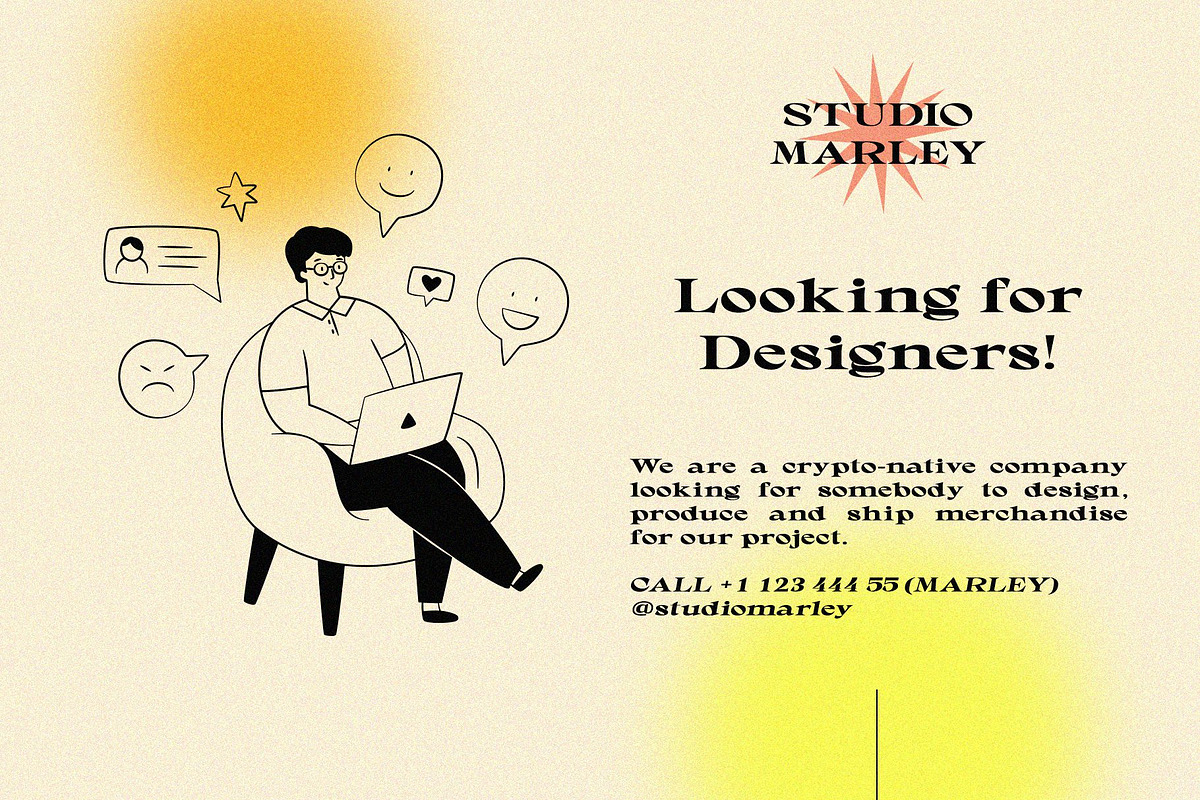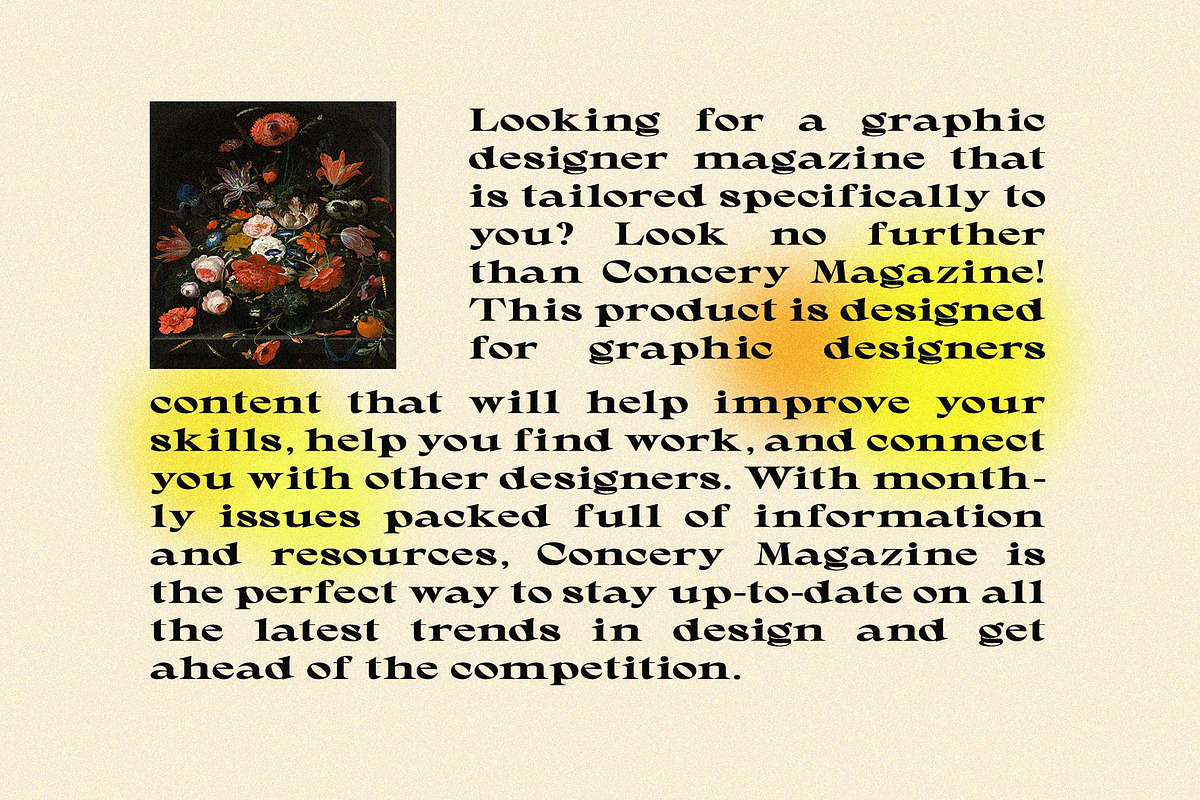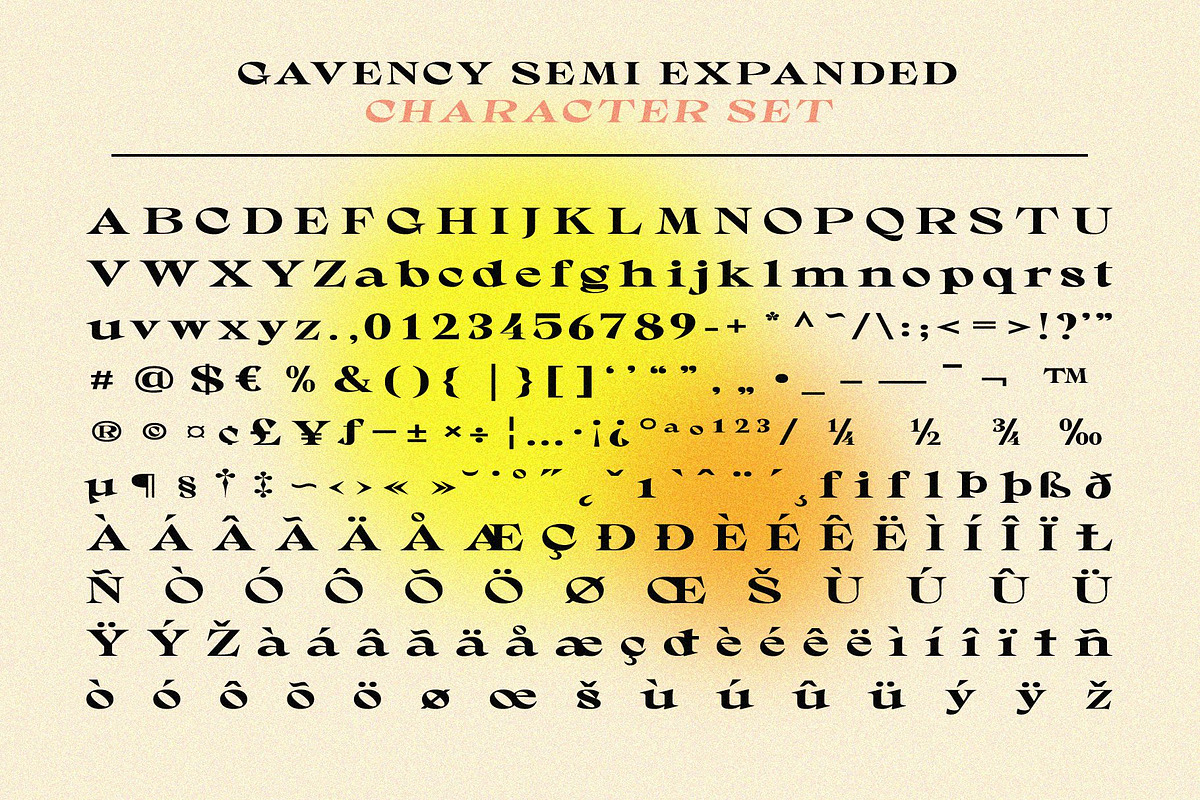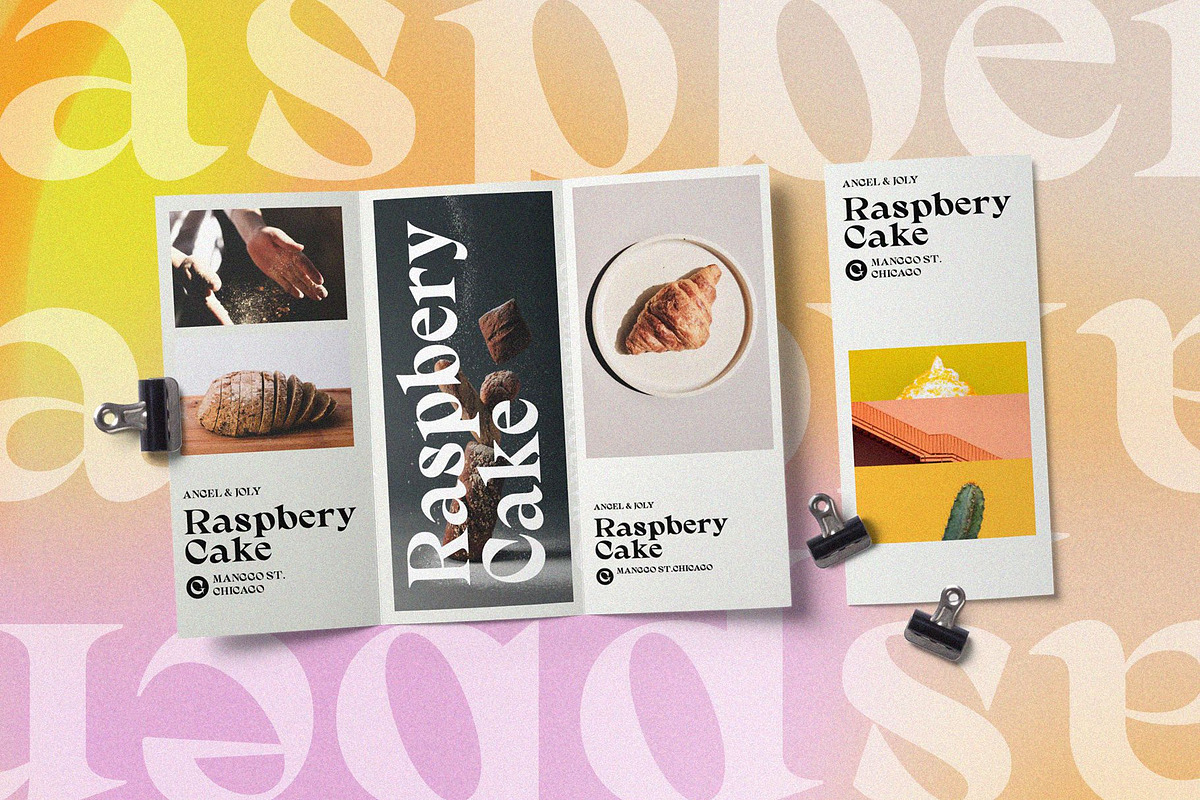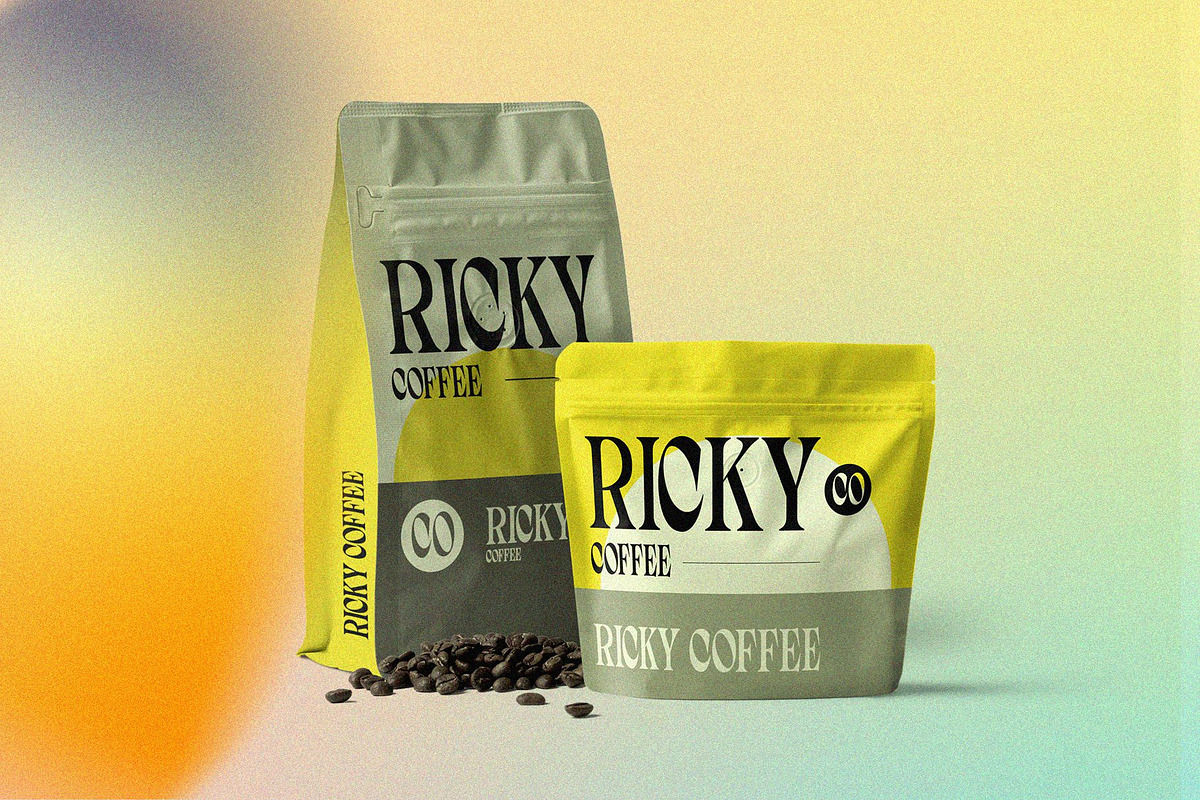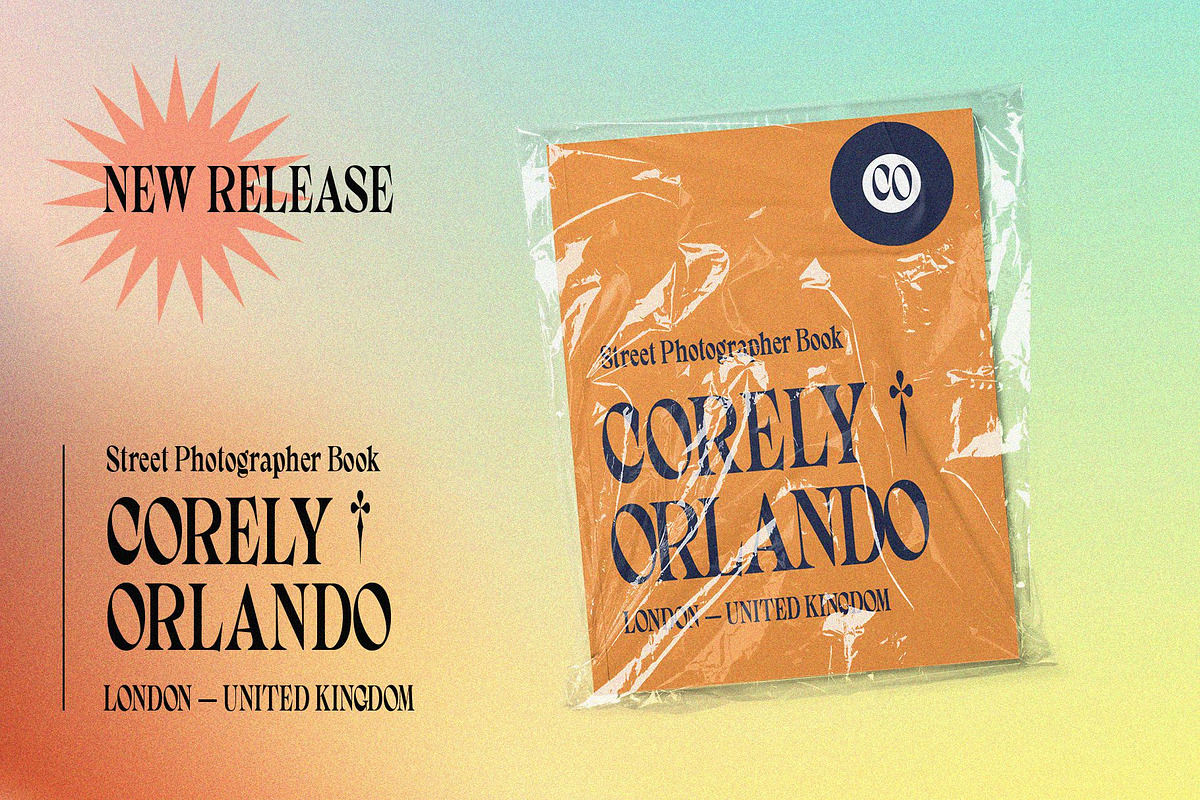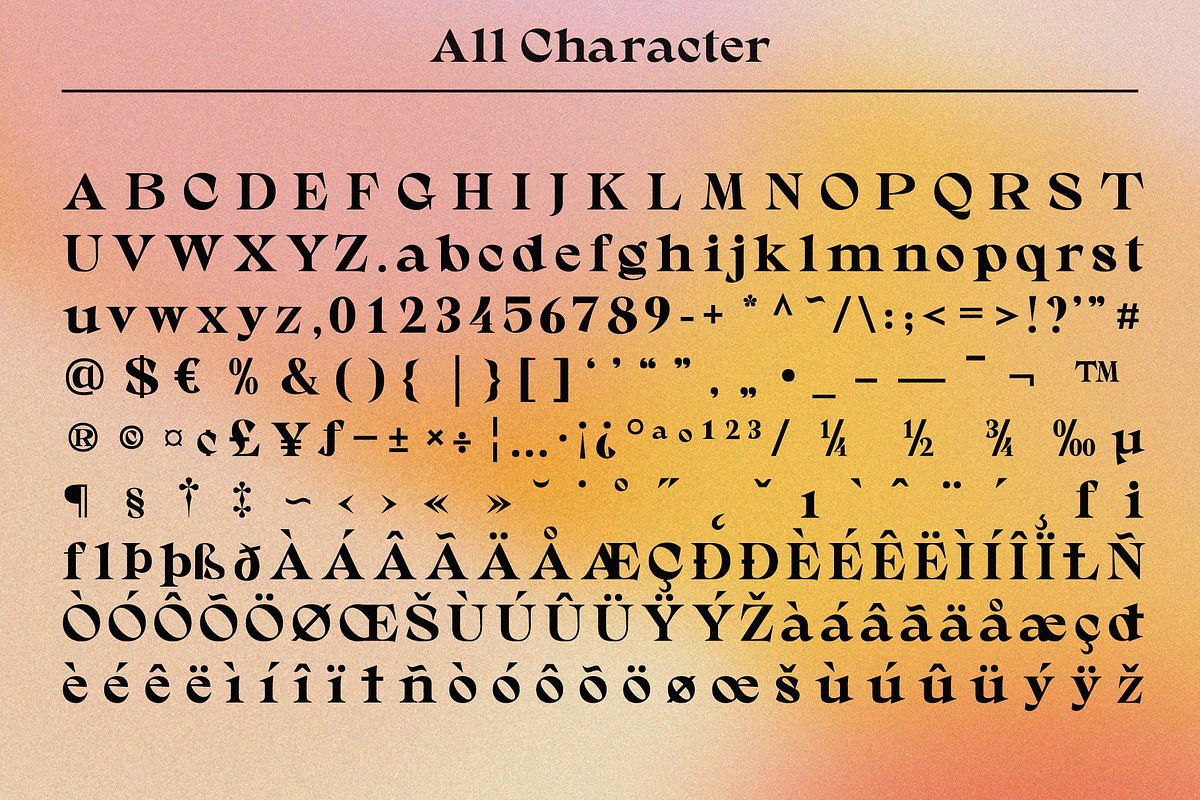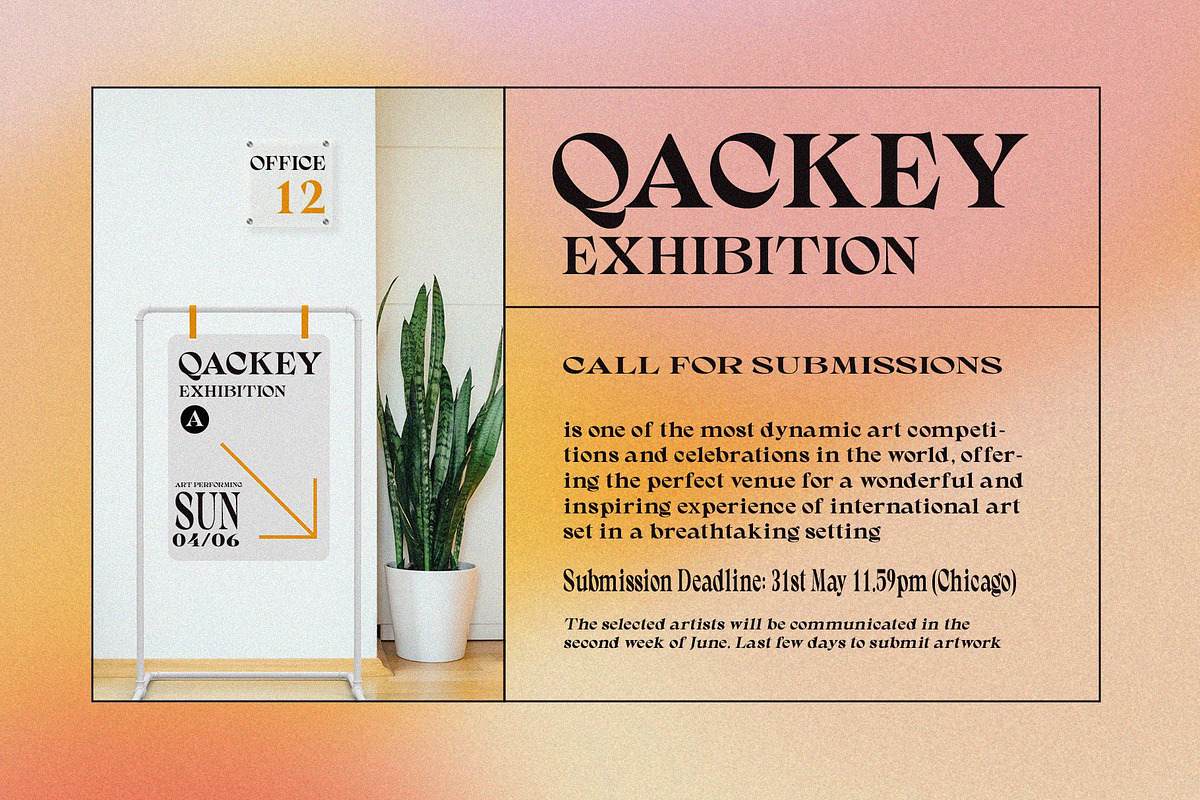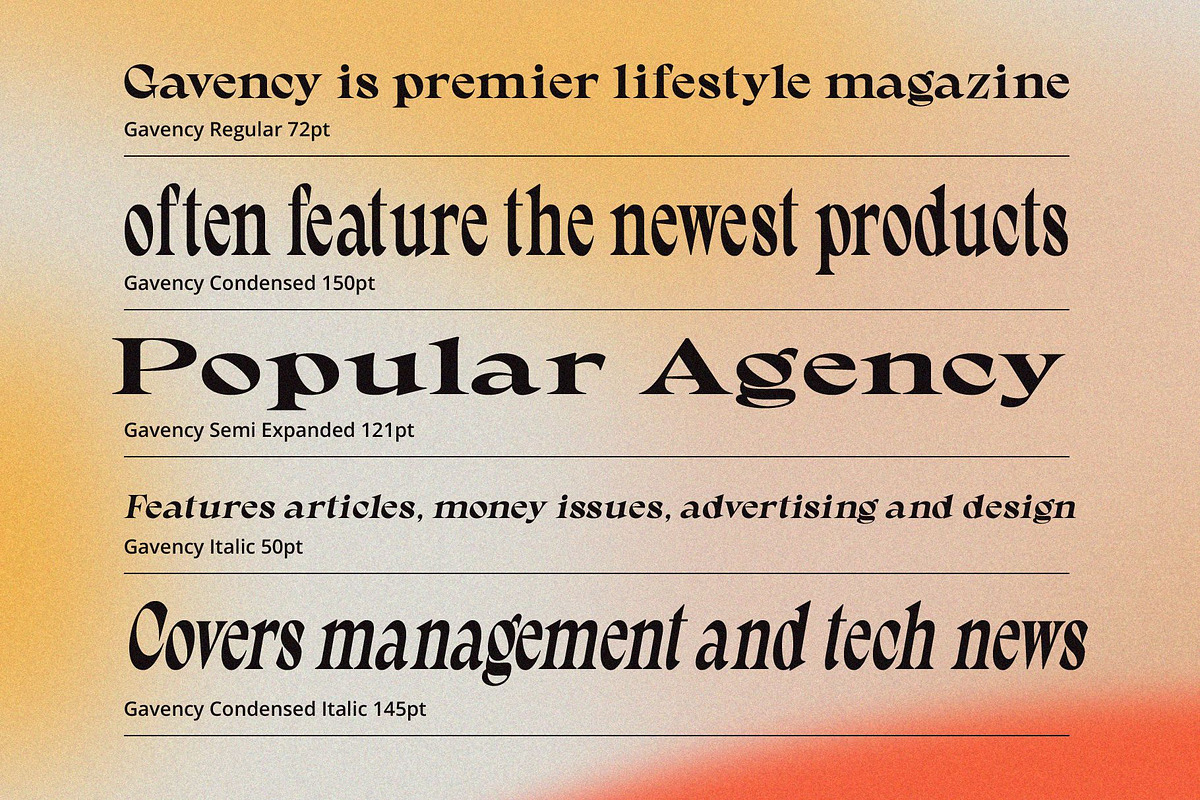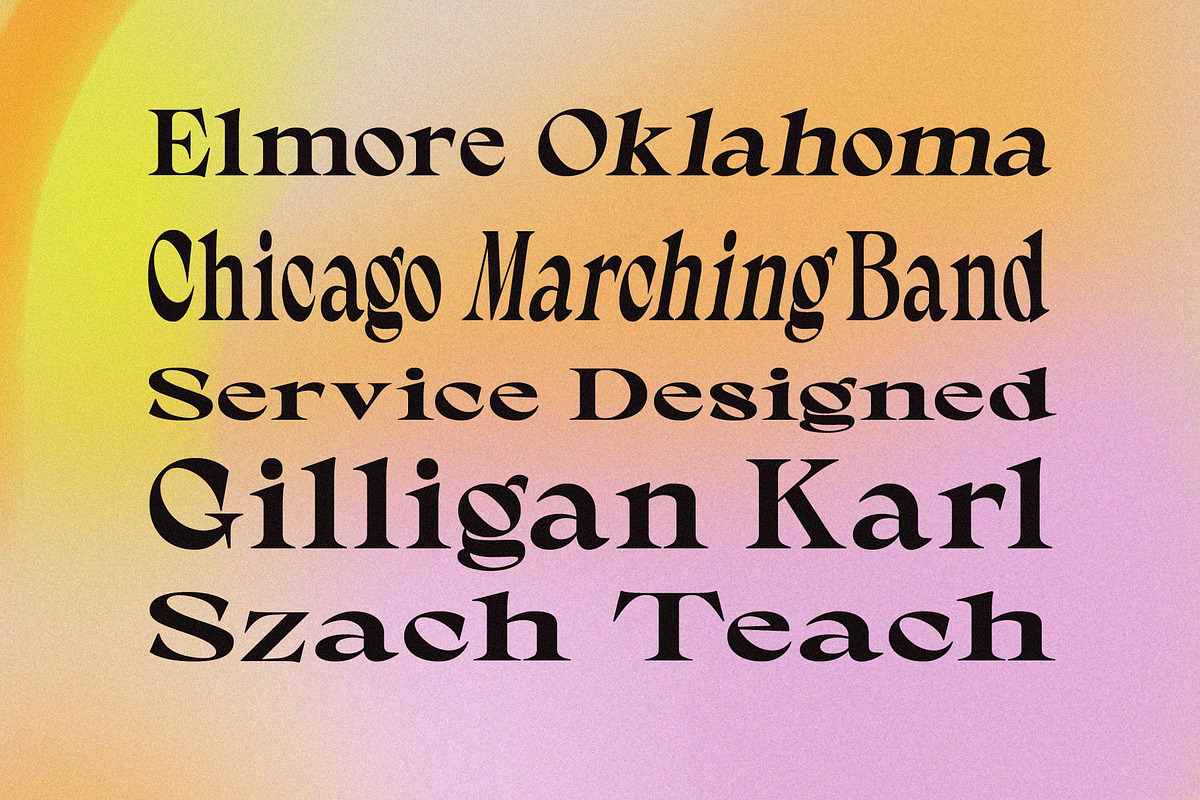
Gavency - Display Serif Font
Introducing Gavency - Display Serif Font
Gavency is a versatile display typeface that can be used for any design project. It comes with 6 style and it has a modern and stylish appearance, making it perfect for creating labels, headers, or anything else you need to add a touch of class to your work. Whether you're a graphic designer looking for an easy-to-use font that'll help you create stunning visuals, or an advertising professional who needs something eye-catching to represent your brand, Gavency is the perfect choice.
- Gavency Regular
- Gavency Italic
- Gavency Condensed
- Gavency Condensed Italic
- Gavency Semi Expanded
- Gavency Semi Expanded Italic